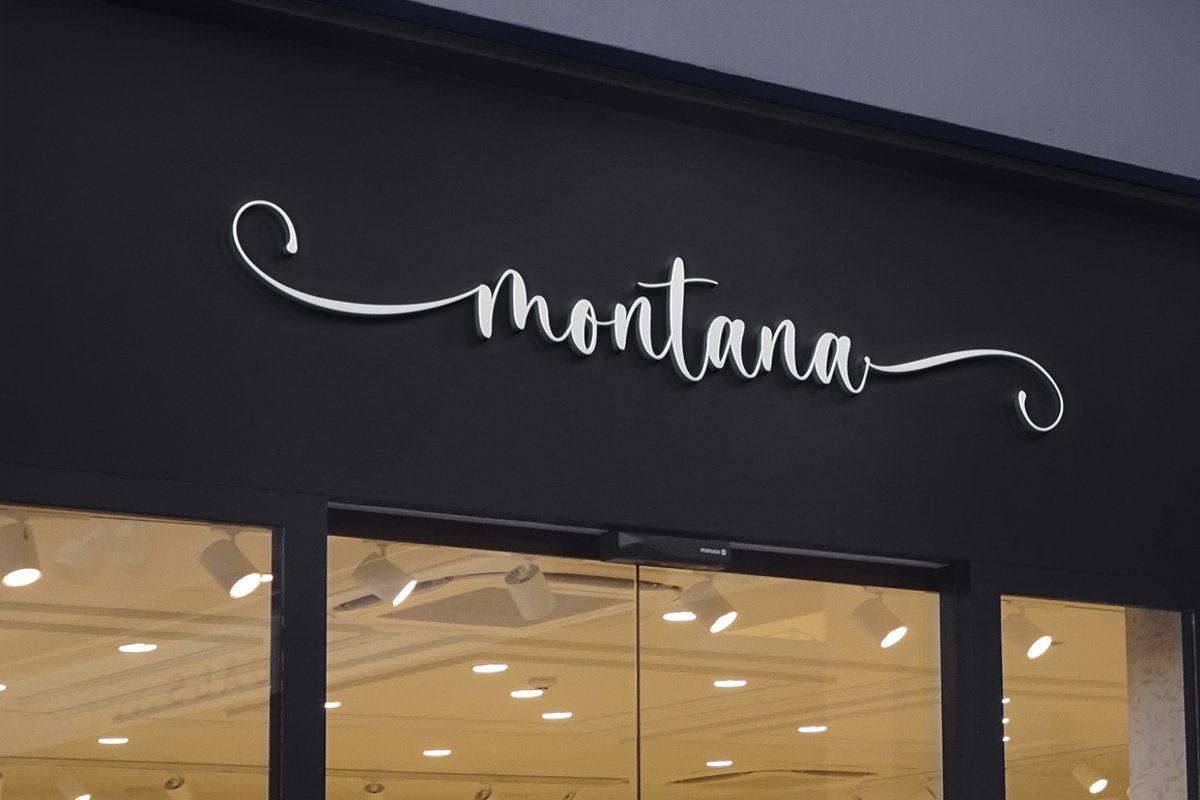
The Best Honest Darling Font References
The Best Honest Darling Font References. Download the honest darling font by sronstudio. Web honest darling font is a beautiful calligraphy font perfect for crafting, branding, invitation, stationery, wedding designs, social media posts, advertisements,.
Web download hello darling font · free for personal use · hello darling is a cute and simple lettered handwritten font that can be used for all chalkboard quotes or teaching. Honest darling is a beautiful calligraphy font defined by a romantic touch. 342.776 scaricati (15 ieri) gratis per uso personale.
Honest darling is a beautiful calligraphy font perfect for crafting, branding, invitation, stationery, wedding designs, social media posts,. It is ideal for crafting, branding, invitations, stationery,. Web honest darling is a beautiful calligraphy font perfect for crafting, branding, invitation, stationery, wedding designs, social media posts, advertisements,.
Honest darling has 1 style and free for personal use license Web honest darling script is a beautiful calligraphy handwritten font perfect for crafting, branding, invitation, stationery, wedding designs, social media posts,. Honest darling is a beautiful calligraphy font.
Web buy honest darling regular desktop font from sronstudio on fonts.com. 342.776 scaricati (15 ieri) gratis per uso personale. Although the typography is traditional, the basic elements are great.
This Is One Of The Unique Calligraphy Fonts Which Carefully.